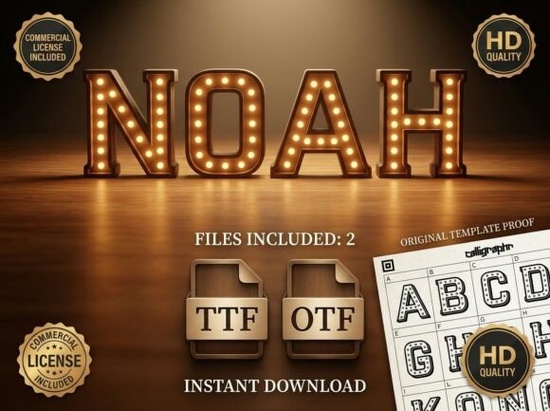
If you're looking for a bold, eye-catching font that brings vintage glamour to your projects, Noah Font is worth checking out. This display typeface stands out with its architectural slab-serif design and subtle internal “light bulb” pattern, giving it a distinctive glow that mimics classic theater signs. It’s perfect for anyone wanting to add a touch of Old Hollywood charm to branding, event graphics, or social media content.
What makes Noah Font special?
Noah isn’t just another bold font it’s built with intention. The letterforms are strong and structured, echoing the grandeur of Broadway marquees from decades past. What really sets it apart is the clever use of negative space inside each character, forming a subtle light bulb effect. It’s not flashy, but it adds depth and authenticity when used in designs meant to feel cinematic or theatrical.
Whether you’re designing a poster for an indie film screening, creating a red-carpet event invite, or crafting a standout header for Instagram, Noah delivers a sense of drama without overpowering the message. Its high-contrast look works well on both dark and light backgrounds, making it versatile across platforms.
Where can you use Noah Font effectively?
- Event branding: Perfect for theater productions, film festivals, or gala events where you want a nostalgic yet modern feel.
- Cinematic titles: Use it for movie posters, trailers, or YouTube thumbnails to give your content a vintage film vibe.
- Social media headers: Make your profile or post stand out with a luminous, star-like aesthetic.
- Print-on-demand designs: Great for T-shirts, mugs, and wall art with phrases like “Starlight,” “On Stage,” or “Hollywood Dreams.”
The font works especially well when paired with clean, minimalist layouts letting the boldness of Noah take center stage. You don’t need extra effects; the design speaks for itself.
How does Noah compare to other display fonts?
If you’ve explored similar styles, you might have come across fonts like Always Chunky, which leans more toward a rugged, urban edge. Or Vandal Vibes, known for its graffiti-inspired flair. Then there’s Vintage Distressed, which adds texture and wear for a weathered look.
Noah sits in a different space altogether. It’s polished, intentional, and rooted in mid-century design. While it shares some visual strength with fonts like Athletic College Outline, Noah’s focus is on elegance and theatricality not sports or competition.
For those who appreciate detail and craftsmanship in typography, Noah offers something rare: a font that feels hand-crafted, even though it’s digital. The internal light bulb pattern isn’t just a gimmick it’s a thoughtful nod to how real theater signs were lit, adding realism to your work.
Is Noah Font easy to use?
Noah Font isn’t just about looking good it’s about feeling right. When you use it, you’re tapping into a legacy of storytelling, performance, and timeless style. It’s ideal for creatives who value personality in their designs and want a typeface that tells a story without saying a word.